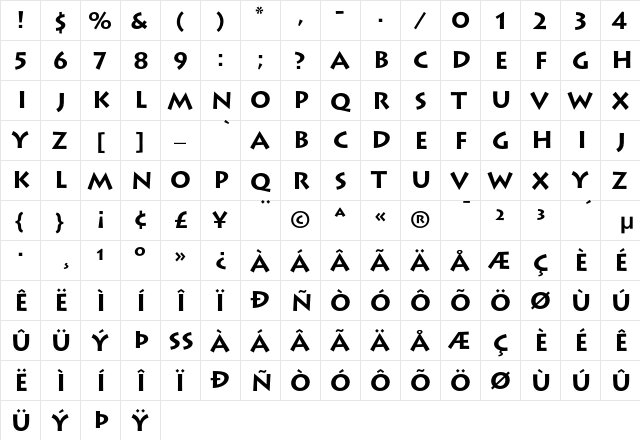
Lithos Bold
Design Context for Lithos Typeface
Lithos takes a measured approach to typography — its balanced proportions and neutral character make it a reliable workhorse for both digital and print work. Its bold stroke weight gives it real presence on the page.